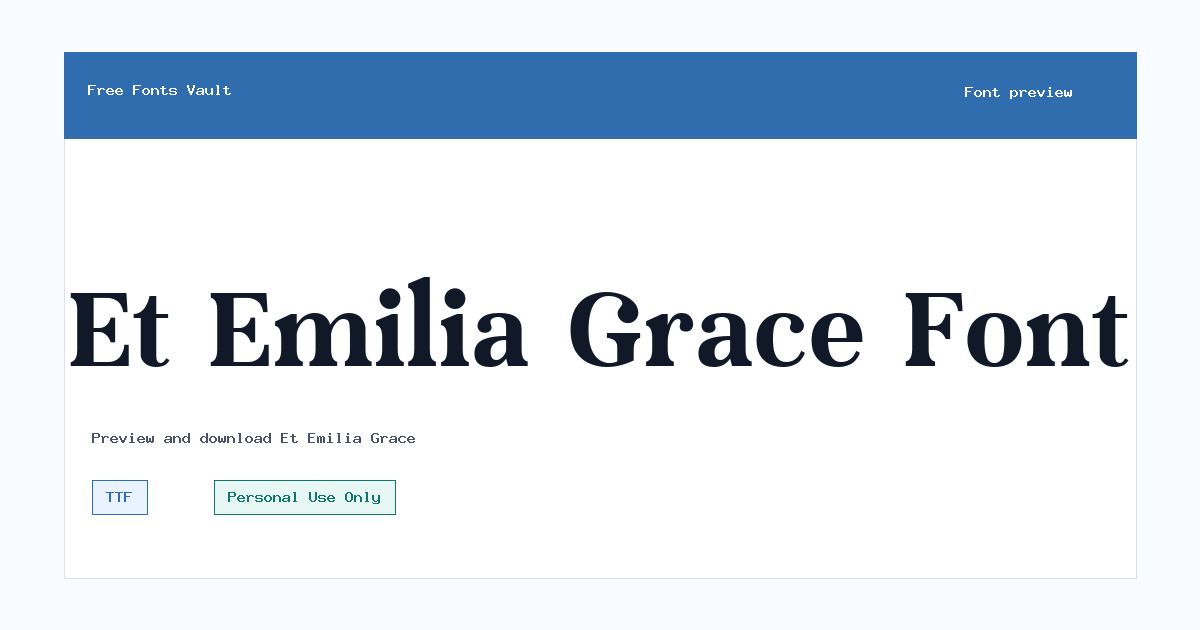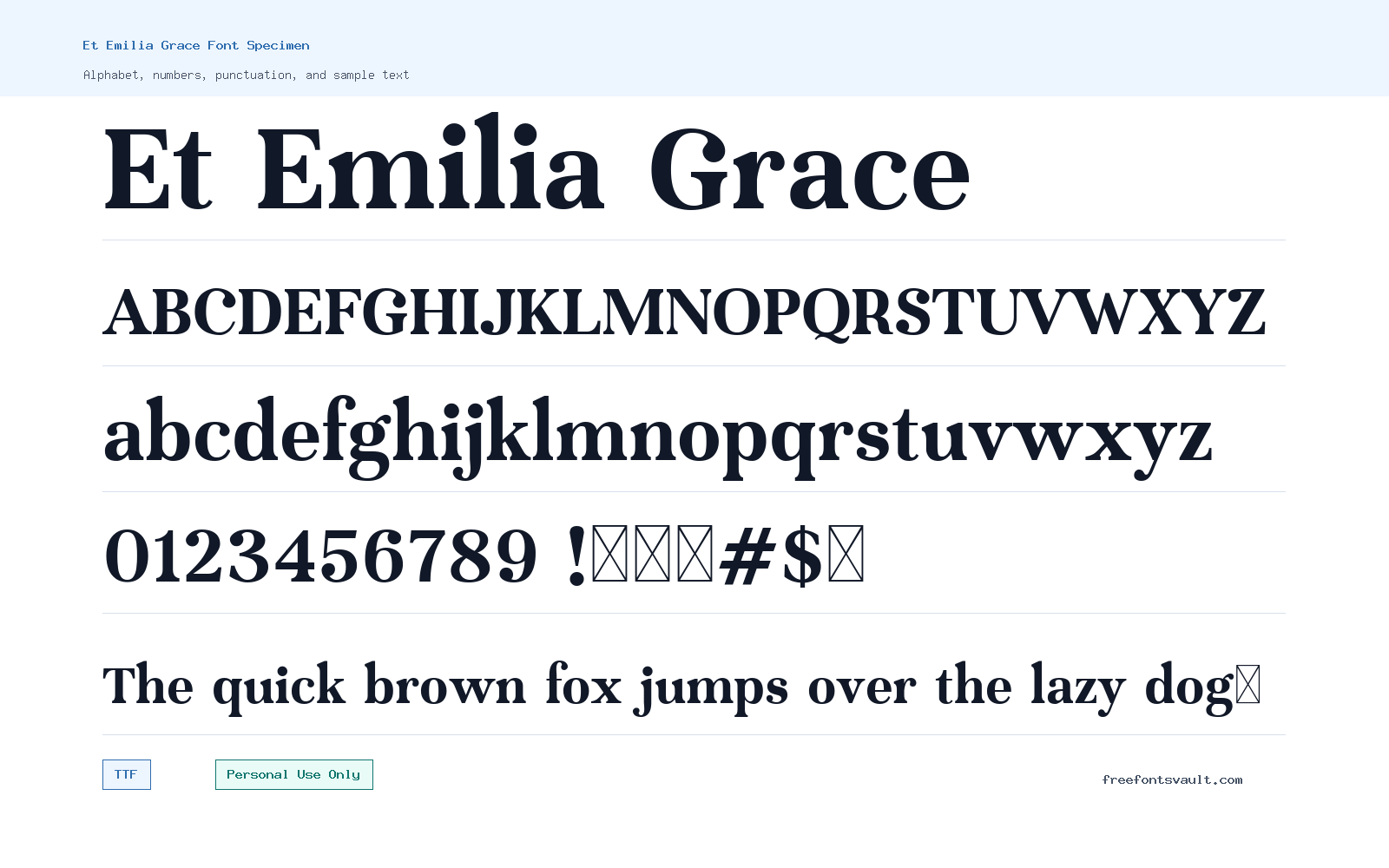
Et Emilia Grace
- Designer Eternity STD
- Foundry Eternity STD
Et Emilia Grace font.
Et Emilia Grace is a serif display font from Eternity STD, offered as a demo TTF for personal-use projects. It is best approached as a decorative text choice for previews, mockups, and non-commercial design testing.
About Et Emilia Grace Font
Et Emilia Grace has the feel of a refined serif made for short, visible text rather than long reading. Its regular style and normal weight make it easy to try in a font previewer, especially for names, headings, invitations, labels, and layout mockups where the type only needs to carry a few words at a time. Because the available file is a demo TTF, it is a practical option for testing a visual direction before deciding whether it fits a finished project.
Use Et Emilia Grace where a serif voice can add a polished or graceful tone without needing heavy effects. Try it in larger sizes first, then check the spacing between letters, the look of capitals, and how punctuation appears in your own wording. For body copy, menus, captions, or dense paragraphs, pair it with a simpler readable sans serif or text serif. If you plan to use it in branding, products, client work, social ads, packaging, or any paid project, confirm the full license terms before release.
- Short headings, names, invitations, and decorative title text
Et Emilia Grace is credited to Eternity STD, which is also listed as the foundry.
What style is Et Emilia Grace?
Et Emilia Grace is listed as a regular, normal-weight serif font. It is better suited to display text than long paragraphs.
Who designed Et Emilia Grace?
The font is credited to Eternity STD.